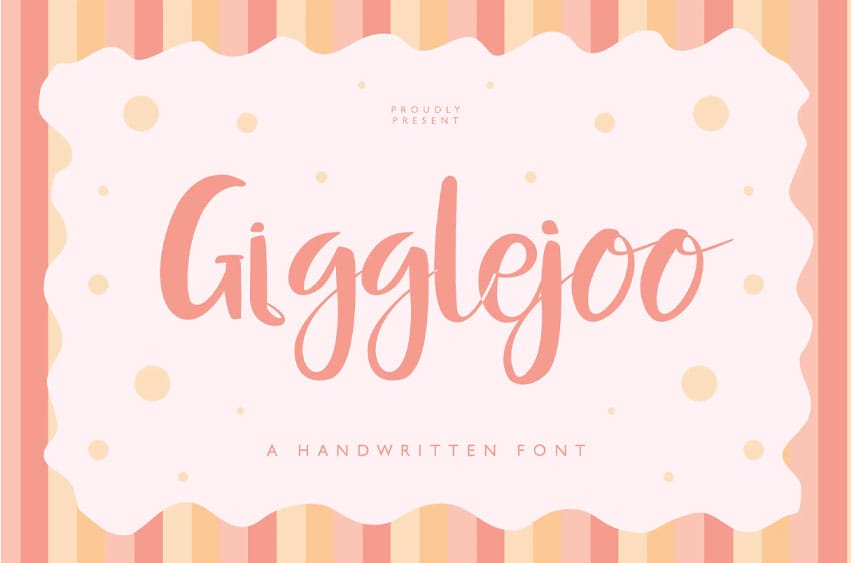
Gigglejoo Font is a fun and whimsical font that radiates charm and lightheartedness. With its quirky letterforms and playful curves, it brings a sense of joy and excitement to any design.
Perfect for projects that aim to evoke laughter and a carefree spirit, Gigglejoo is ideal for children’s books, party invitations, or any design that needs a touch of humor and personality.